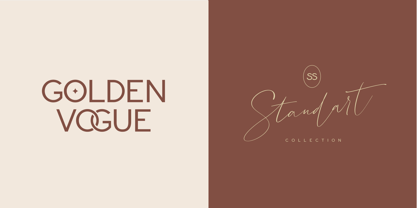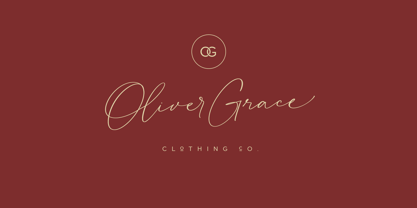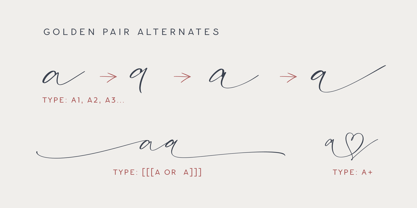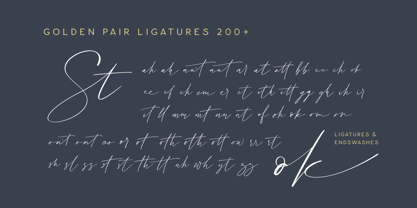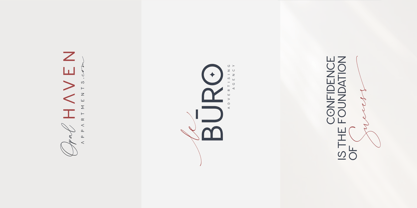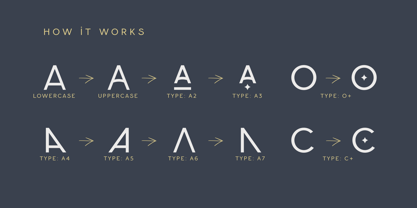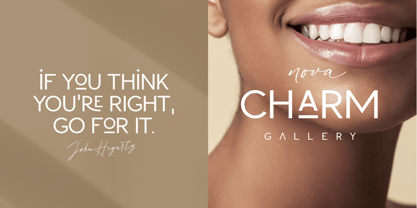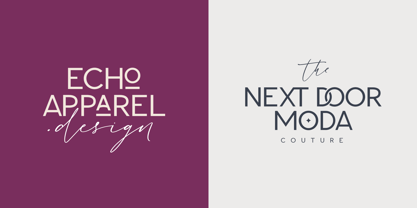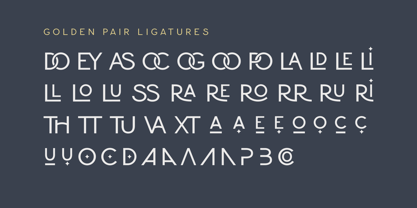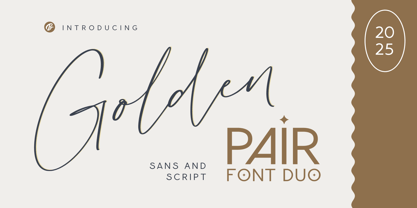
Golden Pair Duo
The Golden Pair Duo Font Family was designed by Dmitrii Mikitenko and published by BlessedPrint. Golden Pair Duo contains 4 styles and family package options. More about this family
Golden Pair is a sophisticated font duo that perfectly blends a modern script with a ligature reach sans serif. Designed for modern creatives, this font offers both versatility and timeless elegance. Whether you're working on luxury branding, stationary, web design or stylish packaging, Golden Pair provides the perfect balance of charm and professionalism.
How it works:
• Golden Pair Sans Ligatures: This sans font is always displayed in uppercase, even when typing in lowercase. If you type in all uppercase, ligatures will activate automatically.
• Golden Pair Sans Alternates: Add a number after a letter to activate stylistic alternates (e.g., A1, A2, A3), or use + after O, D, C to insert a star.
• Golden Pair Script Swashes: Add a swash at the end of a word by typing ], like and] or and]]].
Who is this font for:
• Logo and branding creators
• Elegant signage and business cards
• Product packaging design
• Wedding invitation designers
• Calligraphy enthusiasts
• Custom tattoos and personalized gifts
Multilingual: Supports major European languages: Czech, Danish, Dutch, English, French, German, Italian, Latvian, Lithuanian, Norwegian, Polish, Portuguese, Romanian, Slovak, Spanish, Swedish, Turkish and more.